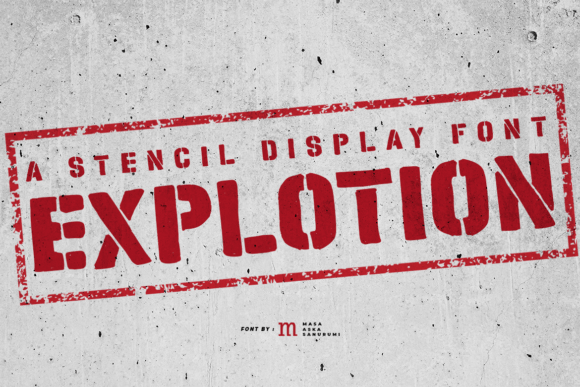
The Perfect Blend of Creativity and Style: Explotion Font
Have you ever been brainstorming ideas for a project, and suddenly, a spark of inspiration hits you? Maybe it’s a burst of color, a quirky illustration, or a font that perfectly captures the essence of your design. For me, that spark often comes in the form of a well-crafted font. And today, I want to introduce you to one that I think will become your new go-to: Explotion Font.
This stencil display font is a game-changer for designers, offering a unique and eye-catching look that’s perfect for everything from greeting cards to headlines. With Explotion Font, you’ll add a cool and exquisite feel to any project, making it stand out from the crowd. Its versatility and style make it an invaluable asset for any designer looking to elevate their work.
Key Features of Explosion Font
- Unique Characteristics: Explosion Font features an explosive, dynamic design with bold lines and vibrant colors, making it perfect for attention-grabbing headlines and titles.
- Kerning and Ligatures: Optimized for optimal text readability, Explosion Font includes advanced kerning and ligature features for improved typography.
Exploration of Explosion Font
As a designer, I was initially drawn to Explosion Font due to its bold and playful appearance. ✨ The font’s intricate details and dynamic feel make it perfect for designs that require a sense of energy and movement. It’s particularly effective when used in headings or titles, as it grabs the viewer’s attention and sets the tone for the content that follows.
However, I did encounter a few limitations during my exploration of Explosion Font. ⚠️ The font’s complex design can make it difficult to read at smaller sizes, which may limit its use in body text or other areas where legibility is crucial. Additionally, the font’s irregular shape can make it challenging to pair with other fonts, which may require additional design work to achieve a cohesive look.
Overall, I think Explosion Font is a great choice for designs that require a bold and dynamic feel. While it may have some limitations, its unique appearance and versatility make it a valuable addition to any designer’s toolkit.
Recommendations
- Use Explosion Font sparingly, reserving it for headings, titles, or other areas where its bold appearance can be effectively showcased.
- Pair Explosion Font with simpler fonts to balance out its complex design and improve legibility.
- Consider using Explosion Font in digital designs, such as websites or social media graphics, where its dynamic feel can be effectively leveraged.
Exploding Font: A Practical Application Guide
Tips for Getting the Most Out of Exploding Font
Experiment with different font sizes, colors, and styles to create a unique and eye-catching effect.
Use Exploding Font to draw attention to important text or to create a sense of drama or emphasis.
Exploding Font is commonly used in:
- Infographics and data visualizations
- Graphic novels and comic books